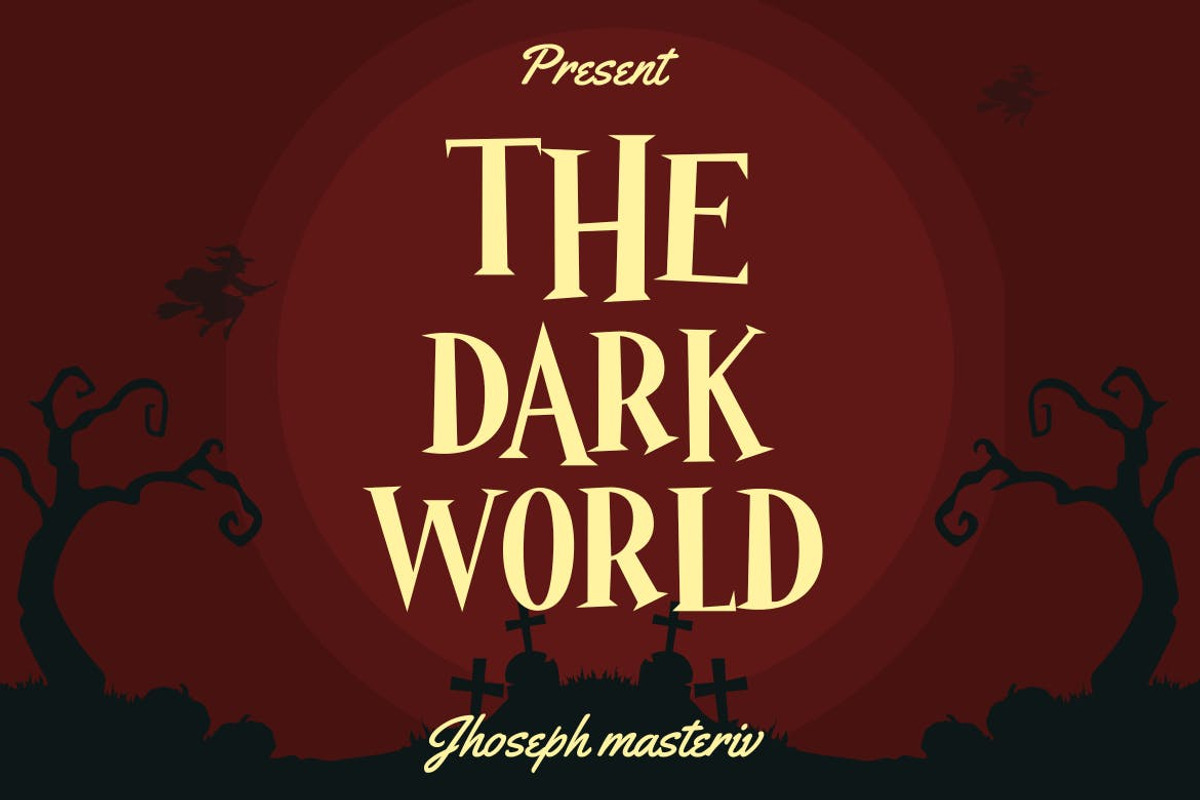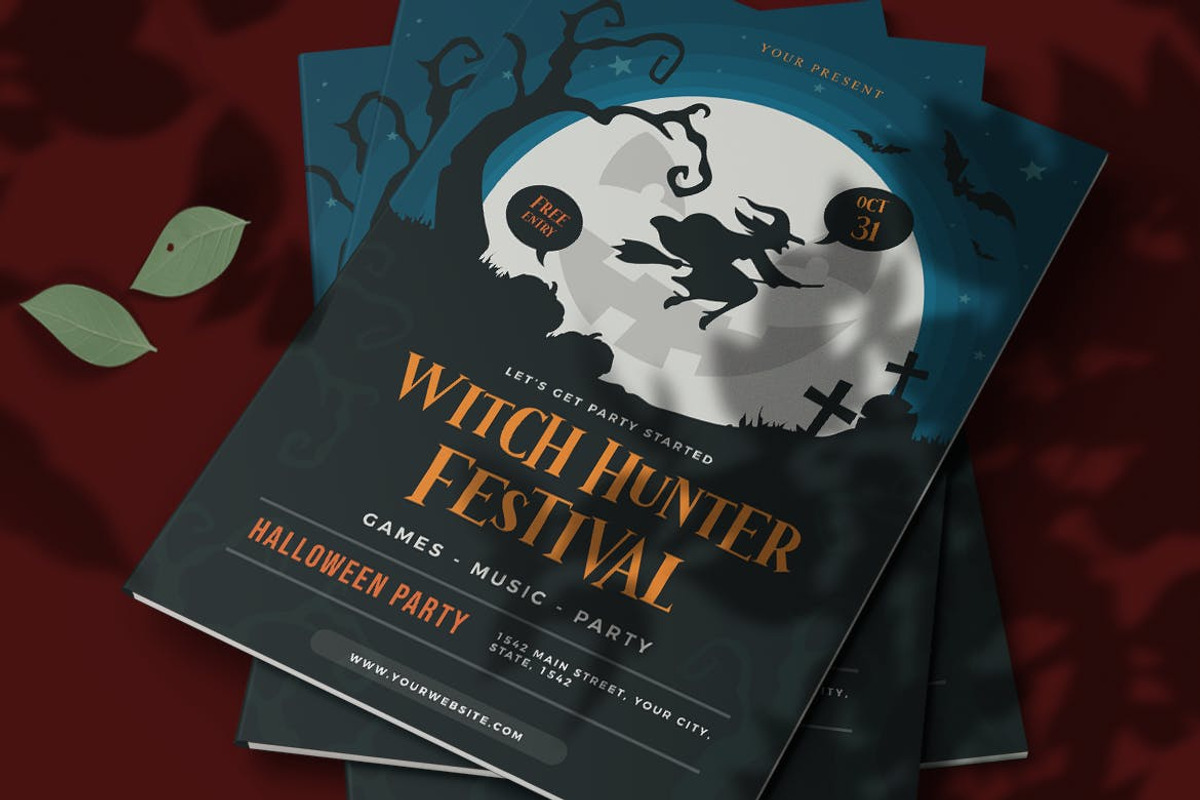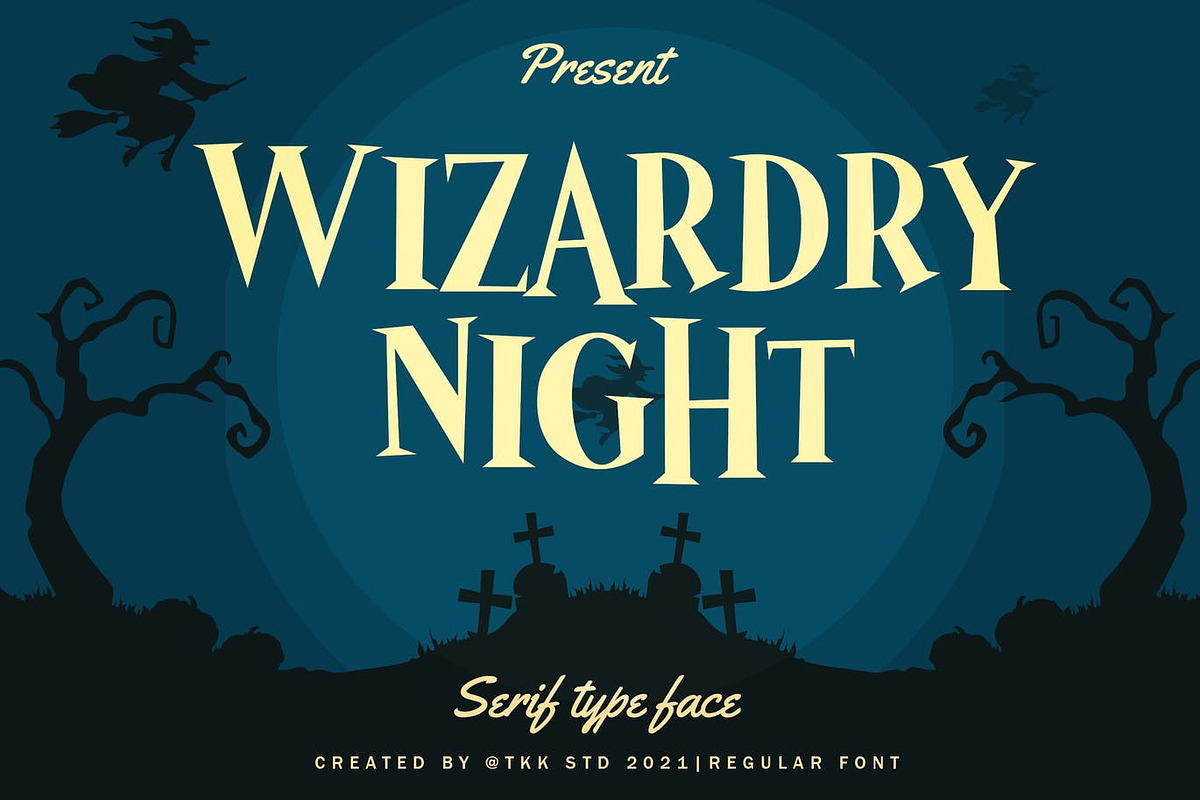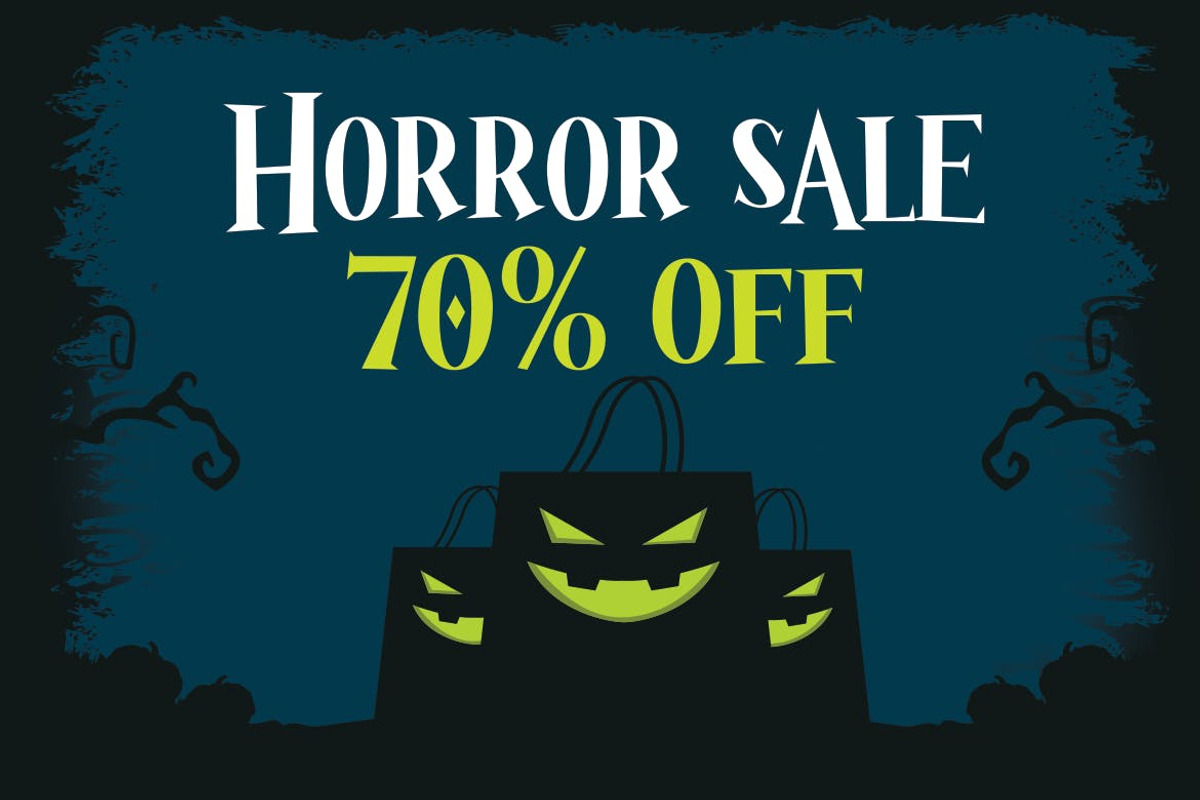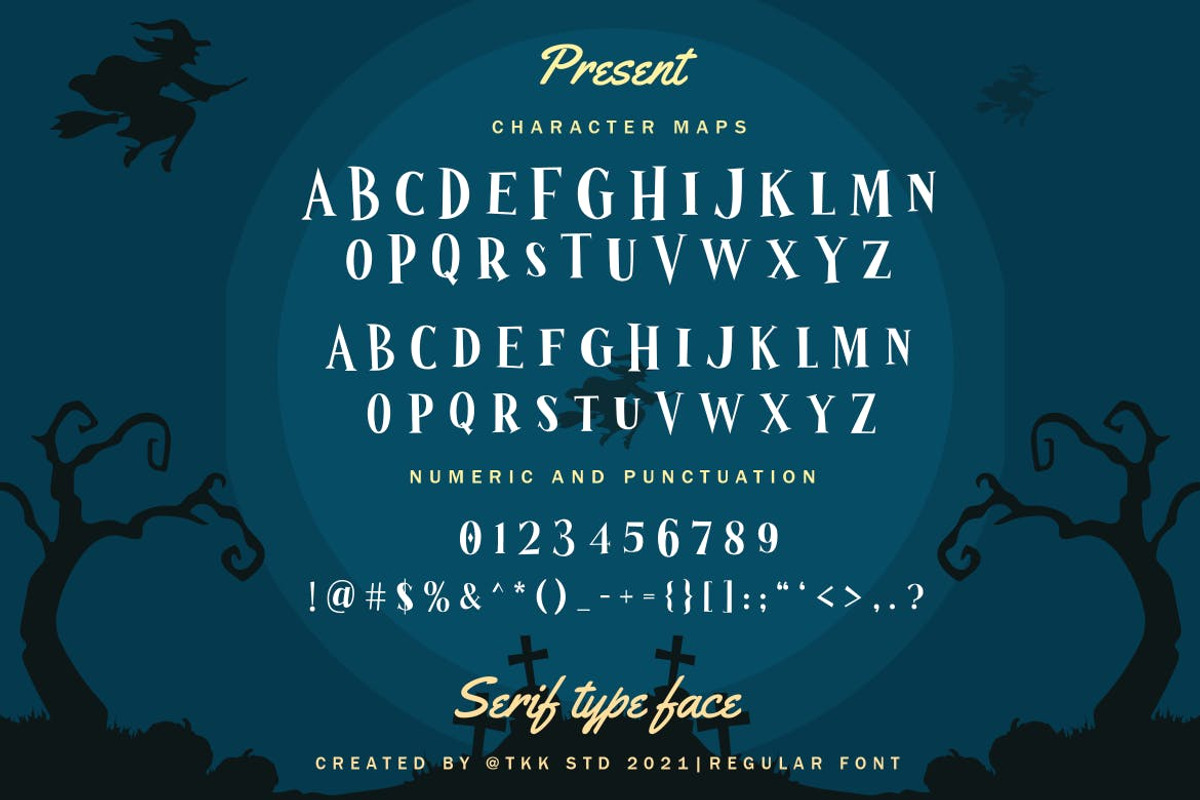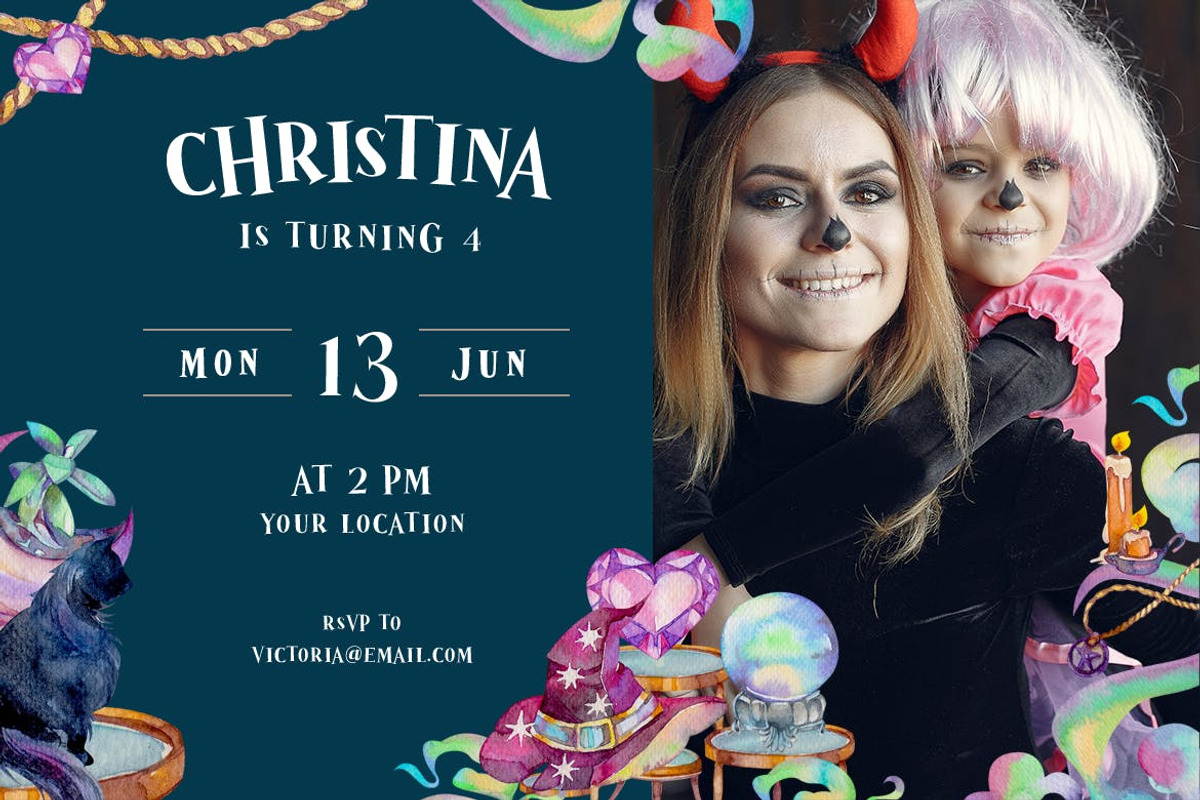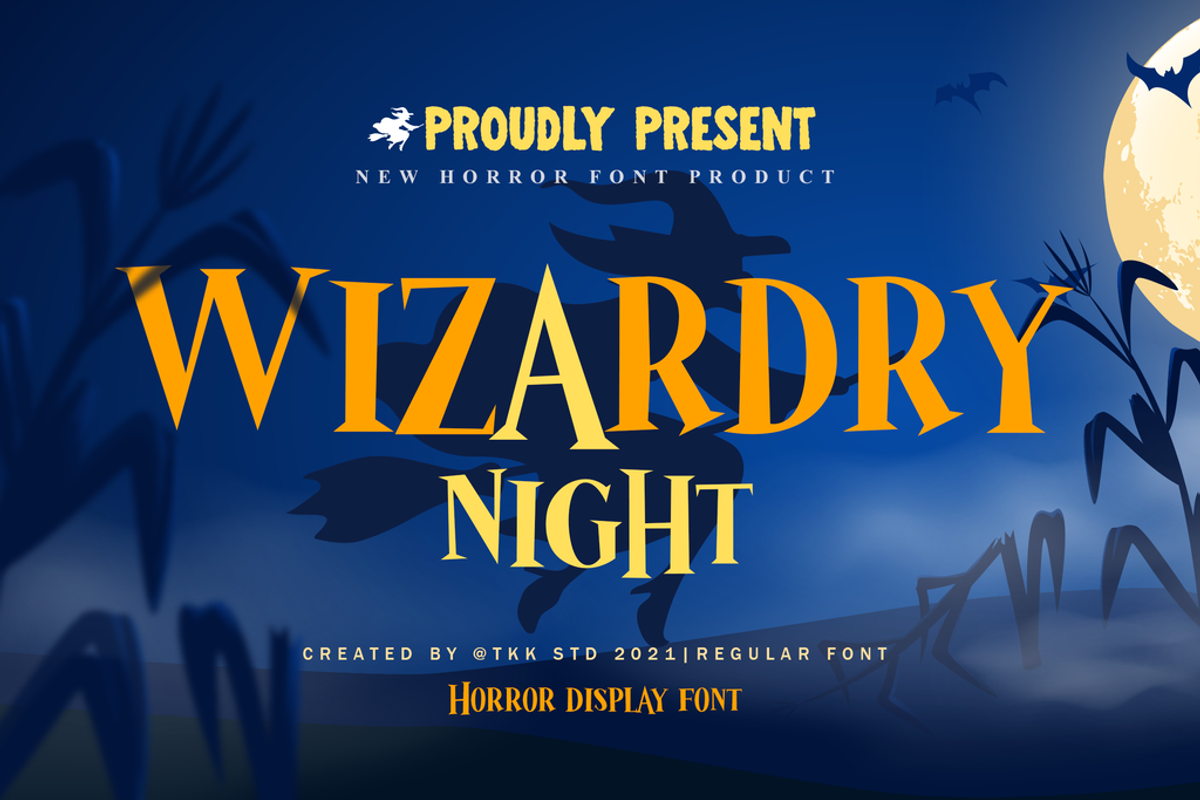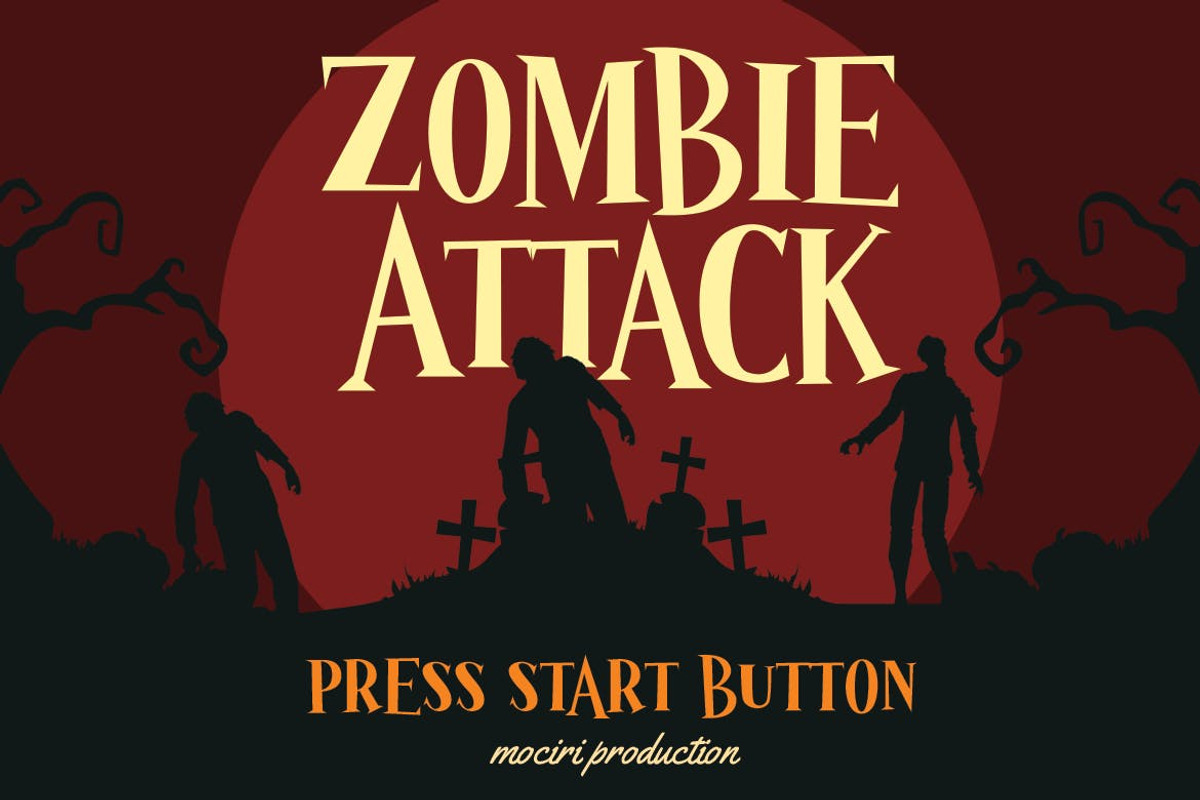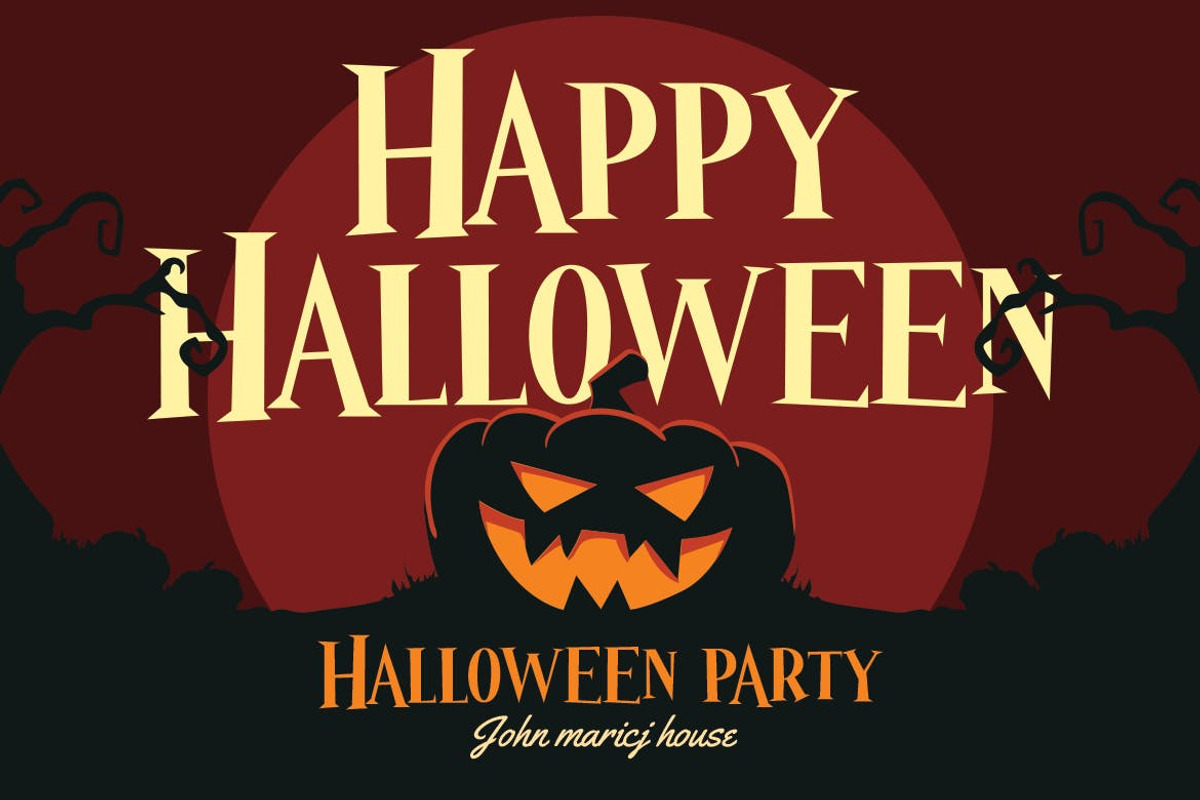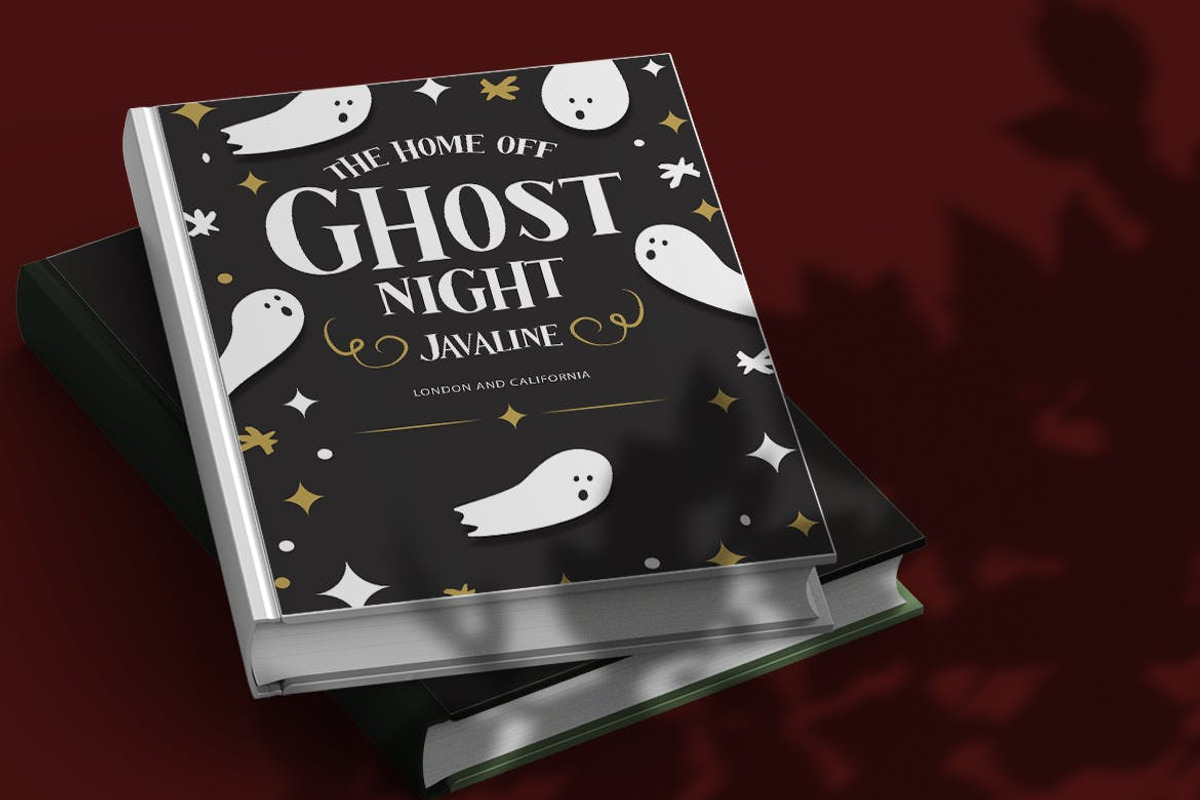
Wizardry Night - Movie Font
Wizardry Night movie font is a night full of magic spells, a foggy road, the smell of freshly made poison from the witch kettle.
Suit perfectly for Online Games, poster, movie title, fast food menu, magazine, youtube covers, youtube thumbnails, social media page covers and so on…